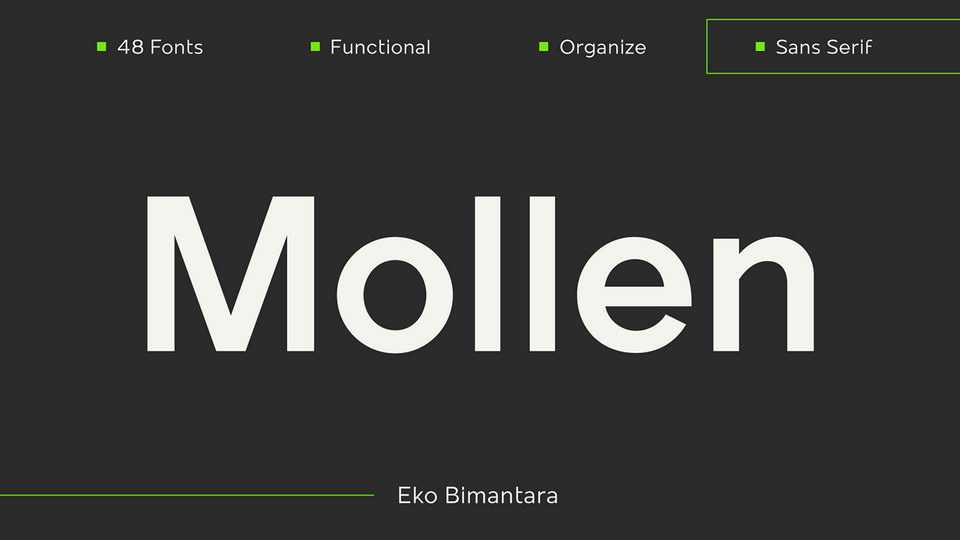
Download Mollen typeface, sans serif font family that designed to be functional. Each glyphs of Mollen are shaped by geometrical form with specific visual structure.